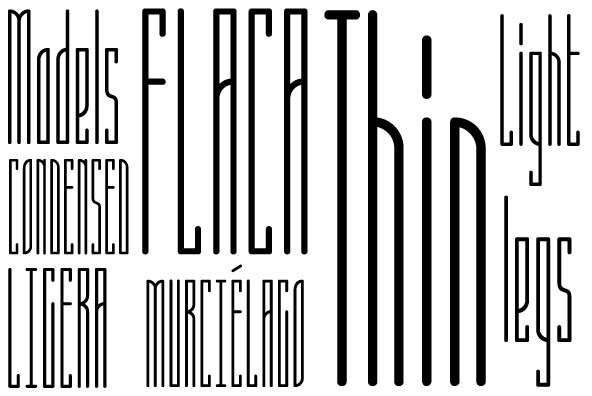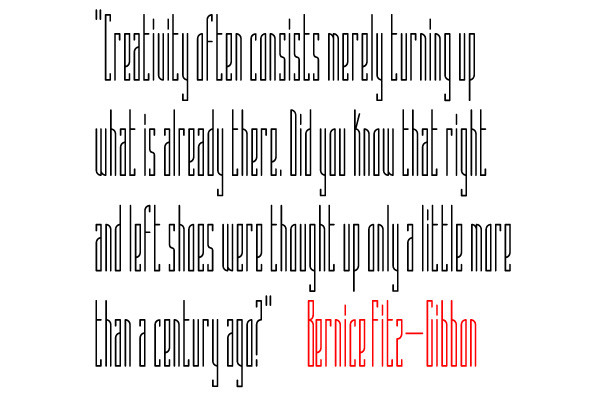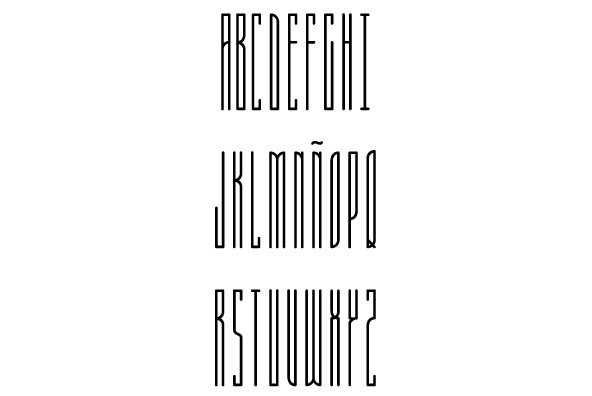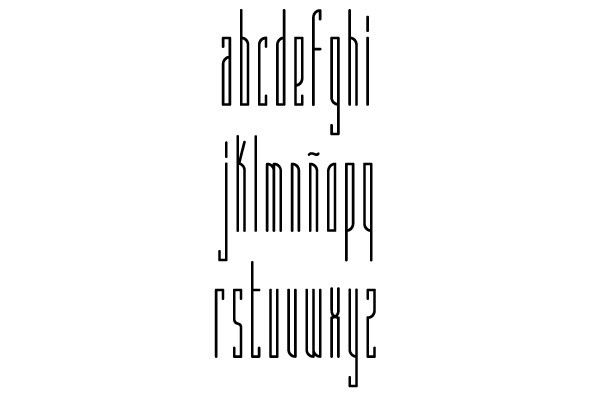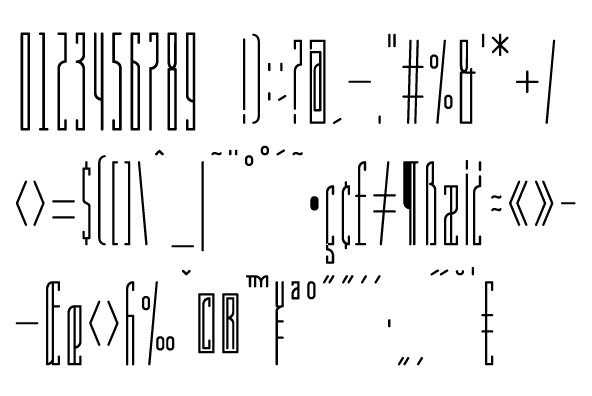
Super C is a monospaced, super compressed font. Great for use as a display font on titles and short texts. It features Latin and Non Latin Characters.
Super C Super C
Super C is a monospaced, super compressed font. Great for use as a display font on titles and short texts. It features Latin and Non Latin Characters.